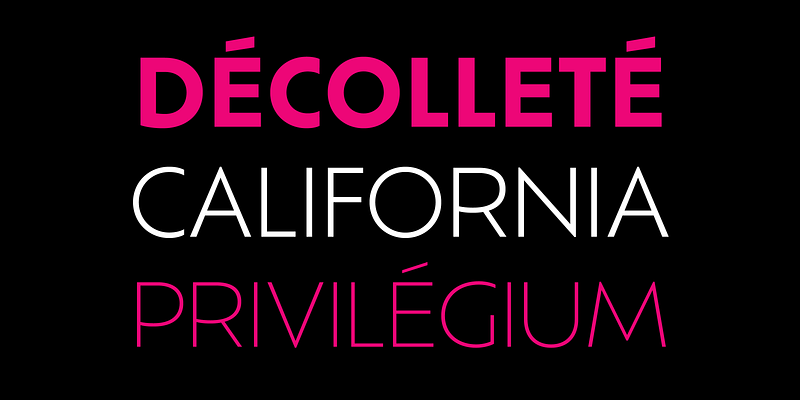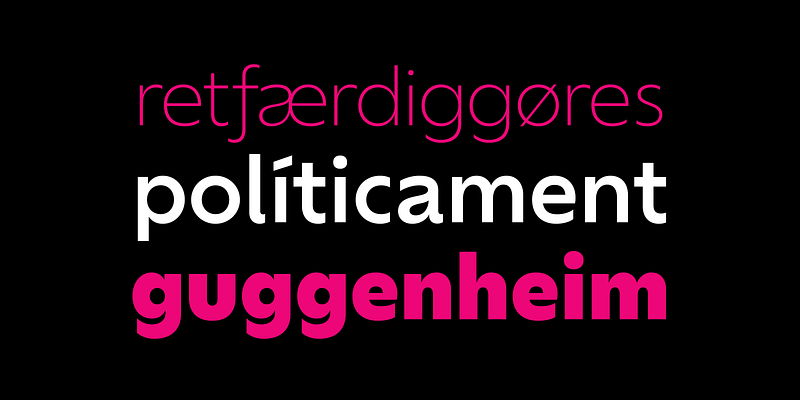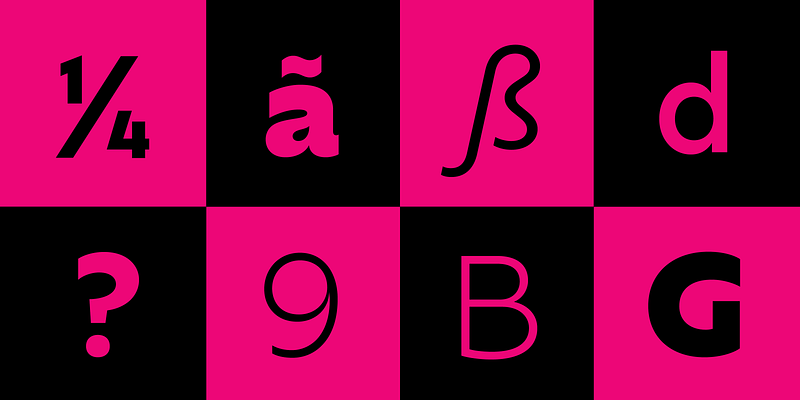
The Ofelia Display Font Family, designed by Daniel Sabino from Blackletra, is a sophisticated typeface that exudes elegance and refinement. As the name suggests, this font family is tailored for display use, making it ideal for large formats such as headlines, posters, branding, and editorial design. With its striking balance between delicate forms and bold impact, Ofelia Display stands as a versatile and timeless option for designers seeking a distinctive typographic voice.
Design Philosophy: Blending Tradition with Modernity
Ofelia Display is a perfect example of how Sabino merges classical typography influences with modern design sensibilities. At its core, this font family embodies high contrast between thick and thin strokes, a characteristic often associated with traditional serif typefaces such as Didot and Bodoni. However, Sabino’s treatment of the forms introduces a unique and contemporary twist, particularly through its exaggerated features, making it a perfect fit for high-end editorial projects, luxury branding, and artful design pieces.
By emphasizing the contrast in letterforms, Ofelia Display achieves a dramatic aesthetic, creating eye-catching text that demands attention. Yet, despite its boldness, it maintains a level of sophistication that keeps it elegant, rather than overwhelming.
The Anatomy of Ofelia Display
The Ofelia Display Font Family is defined by its sharp serifs, elongated curves, and high contrast between thin and thick strokes. This creates a visually striking appearance, especially when used in large formats, where the details of each letter can be appreciated.
- High Contrast Strokes: The thick vertical strokes juxtaposed with extremely thin horizontal lines give the font a sense of drama and intensity. This high-contrast design is a hallmark of classical display fonts, and Ofelia Display delivers on this tradition while also pushing it into contemporary spaces.
- Sharp, Elegant Serifs: One of the defining characteristics of the Ofelia Display is its pointed, sharp serifs. These serifs add a layer of sophistication and contribute to the font’s refined aesthetic. Unlike the more conservative treatment of serifs found in traditional text typefaces, Ofelia’s exaggerated serifs make a bold statement, perfect for attention-grabbing titles.
- Elongated Forms: The stretched vertical proportions of some characters add an extra layer of refinement to the overall design. These elongated forms convey a sense of grandeur, helping to create a luxurious and stylish visual presence.
- Unique Letter Shapes: Ofelia Display features distinctive letterforms that set it apart from other display fonts. For example, its treatment of the “Q” with a flowing, exaggerated tail, or the pointed apex of the “A,” adds a decorative flair without sacrificing readability. These characteristics make Ofelia Display ideal for logos, branding, and any design requiring a typeface with personality.
A Wide Range of Weights for Flexibility
Ofelia Display is not just a one-size-fits-all display typeface. The font family offers a range of weights, from Light to Bold, allowing designers to use it in different contexts while maintaining visual consistency across various applications. The lighter weights provide a sense of delicacy and finesse, making them ideal for minimalist, high-end branding or subtle headline use. The bolder weights, on the other hand, are impactful and bold, perfect for large-scale display or designs where a commanding presence is required.
The variety of weights also allows designers to create a harmonious typographic hierarchy, with lighter styles for subtitles or secondary text, and heavier weights for the main headlines or dominant elements.
Ideal Use Cases for Ofelia Display
The Ofelia Display Font Family is a strong contender for any design project that demands elegance, refinement, and a modern aesthetic. Its characteristics make it perfect for a wide range of applications:
- Editorial and Magazine Design: Ofelia Display’s sharp contrast and elegant serifs are tailor-made for high-end magazines, luxury editorials, and fashion publications. Its striking forms ensure that headlines and section titles make a bold statement, while the more delicate weights can be used for intros or subheadings, maintaining visual consistency.
- Branding and Logo Design: The font family’s sophisticated appearance makes it a natural choice for luxury brands, high-end products, or boutique businesses. Ofelia Display can elevate a brand’s image, exuding exclusivity and quality. The uniqueness of its letterforms also makes it an excellent option for logo design, where memorability is key.
- Posters and Advertising: For large-scale use, such as posters or advertising campaigns, Ofelia Display’s dramatic contrast and sharp lines help create visually arresting designs that captivate an audience. The font family’s ability to stand out while remaining refined makes it particularly effective in visually dense environments where other fonts might get lost.
In a world where typefaces need to perform across a variety of platforms, Ofelia Display offers both visual impact and timeless sophistication. It is a font that not only stands out but also elevates the projects in which it is used, making it a valuable asset for designers who want to combine beauty and functionality.